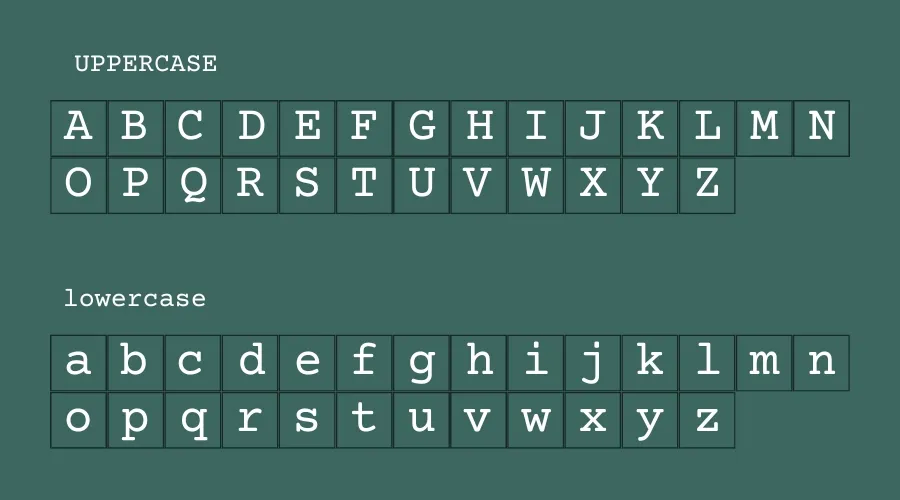
About Courier M Font
The Courier M font family was designed by Howard Kettler and published by URW Type Foundry in 1983. It is a truly remarkable font that has been used for headings and titles. You can get it free from here and may utilize it for CSS and adobe photoshops. T
he Courier M family contains four distinct styles, which include regular, italic, bold, and bold italic. Regular and italics are best suited for document text, while bold and bold italic is perfect for headlines or titles. It has amazing copy-and-paste functions, that can be utilized on your various projects.
The main distinctive feature of the Courier M typeface is its monospaced design. It contained all types of alphabet characters such as small letters, capital letters, numerals, digits, symbols, and many other projects.